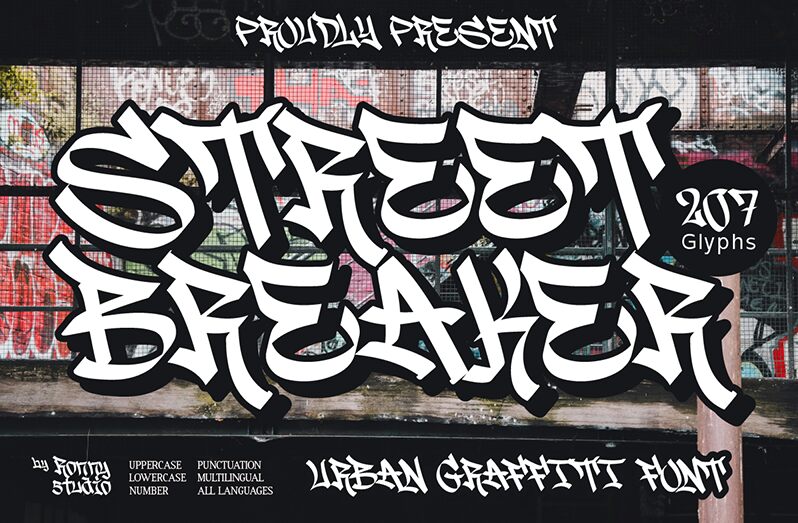
Street Breaker font by Ronny Studio is a free graffiti-inspired font aimed at urban and dynamic design projects. The expressive, edgy, and energetic font style gives a bold visual presence to any project. It draws inspiration from street art and offers a wide range of contemporary applications. Street Breaker can be used for branding youth-oriented products, music album covers as well as cover art.
This graffiti font is the right choice for projects aimed at a younger and edgier audience. It can be used for branding, labels, stickers, comics, cartoons, and any relevant projects. Street Breaker can also work for poster design, social media, advertising, typography, sticker design, tattoos, and campaigns with socio-political undertones.